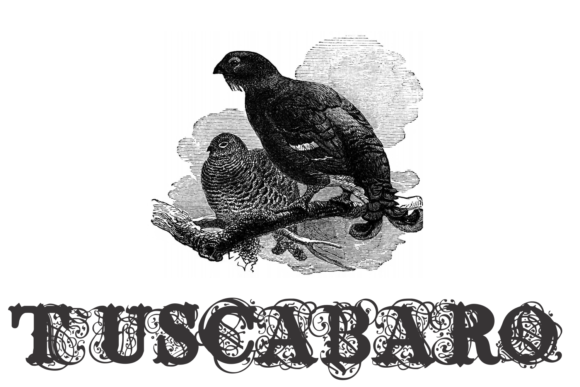
Let your visual brilliance shine with Tuscabaro Font, an exquisite fusion of two distinct decorative styles that converge into a captivating display font. Created by the ingenious Intellecta Design, Tuscabaro Font is an emblem of aesthetic elegance, designed to elevate your creative expressions to awe-inspiring heights.
Unleash your imagination and let your designs bloom with the vibrant energy of Tuscabaro Font. Whether you're crafting logos, posters, social media graphics, or any other visual masterpiece, this font will be your trusty companion, transforming ordinary words into captivating works of art.
With Tuscabaro Font as your ally, you'll captivate your audience with its elegant curves, sharp edges, and carefully crafted details. This font's unique personality adds a touch of sophistication and charm to every design, creating a lasting impression that resonates with viewers.
More than just a font, Tuscabaro Font is an experience. Immerse yourself in its beauty and watch as your creative endeavors take on a life of their own. With its versatile nature, Tuscabaro Font effortlessly adapts to a myriad of design styles, allowing you to explore boundless creative possibilities. Embrace the artistry, embrace the creativity, and embrace Tuscabaro Font.